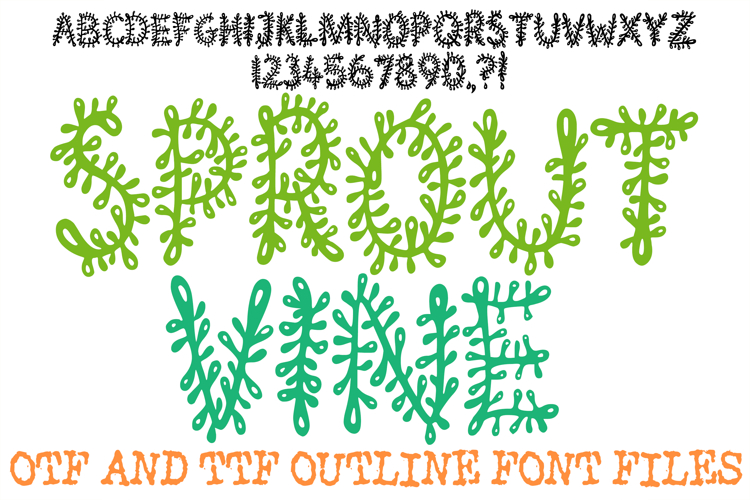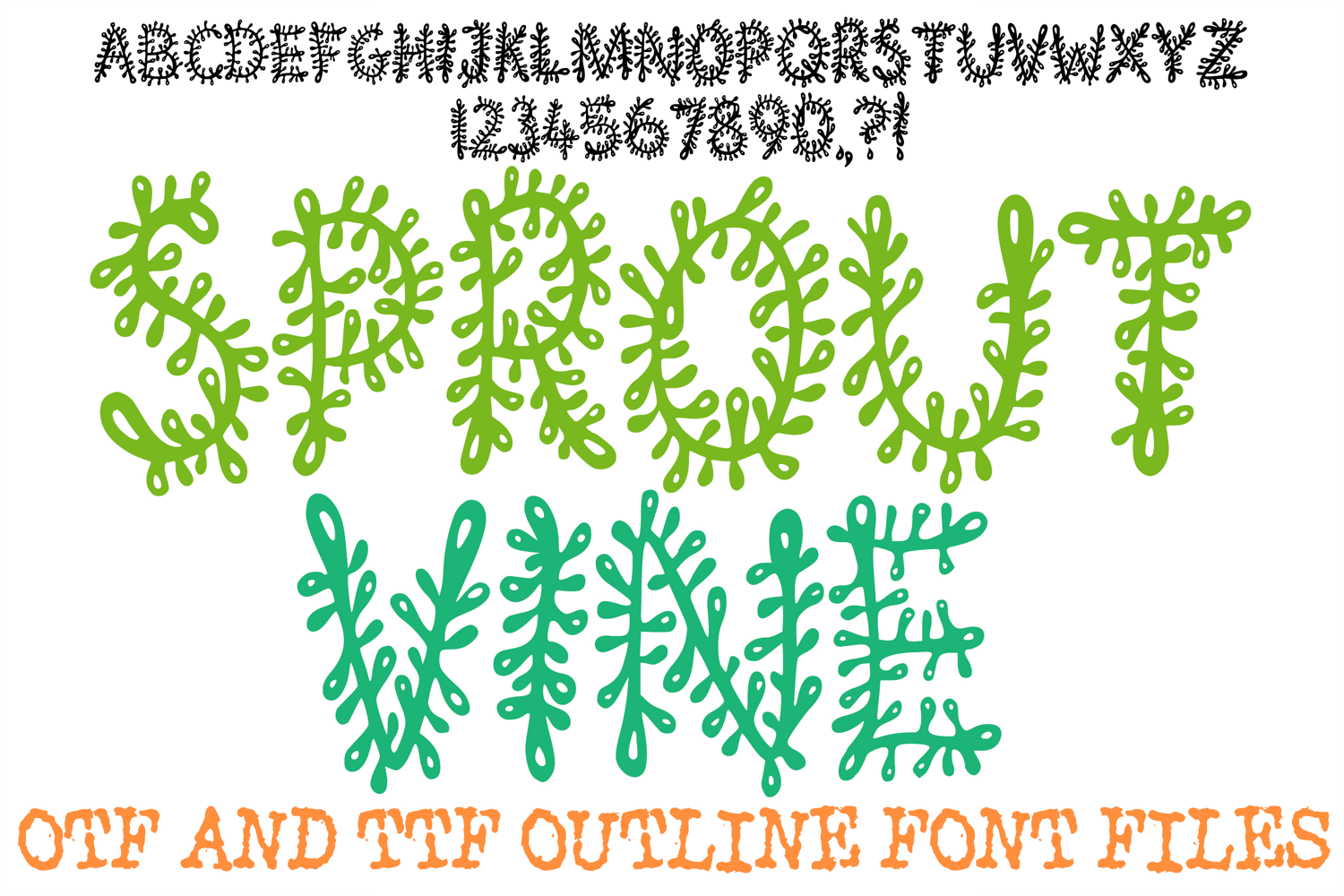
Breathe fresh, organic life into your creative layouts with the whimsical and intricately detailed Sprout Vine Font. This highly unique hand-drawn display typeface features letterforms covered in tiny growing sprouts, leafy tendrils, and organic shoots. Perfectly blending a cozy garden aesthetic with a fantasy woodland vibe, this alphabet mimics climbing ivy, wild forest moss, or delicate botanical vines. It stands as an exceptional choice for headlines, logos, and craft designs that require a touch of natural enchantment and lively, hand-crafted detail.
Delivered as an installable typeface, this detailed line art structure provides incredible creative versatility. It serves as an excellent resource for a designer who wants to overlay lush botanical vector illustrations, fill individual leaves with vibrant spring colors, or offset the textured black linework against earth-toned backgrounds. The clean, organic linework scales beautifully across all major design software, ensuring sharp, crisp results for both digital designs and physical print templates.